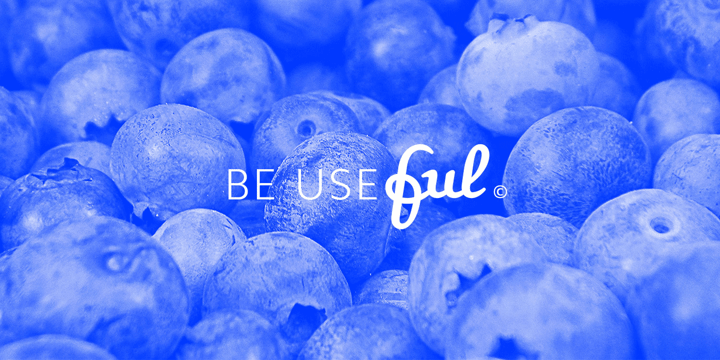
Ful • Fruitful & Universal Labels
The Ful • Fruitful & Universal Labels Font Family was designed by Diogo Trindade and published by S P I C I O. Ful • Fruitful & Universal Labels contains 1 styles.
What is ful? ful is a useful and universal language of symbols for food products. Why use ful? ful is a simple visual system. With ful, you’ll never have to read the entire label to know the basic information. With ful, you have access to the basic information much faster. Answering the questions: • What kind of diet is it? [Diet] • How to store, prepare, and use? [Use] • Can I eat it? [Warnings] Why create ful? • To have the basic information quickly, anywhere in the world. • To create a more homogeneous design. • To solve some of the basic problems with the old designs. • To accelerate the process of consumer choice. • To provide as much information as possible in the least possible space. http://ful.graphics/